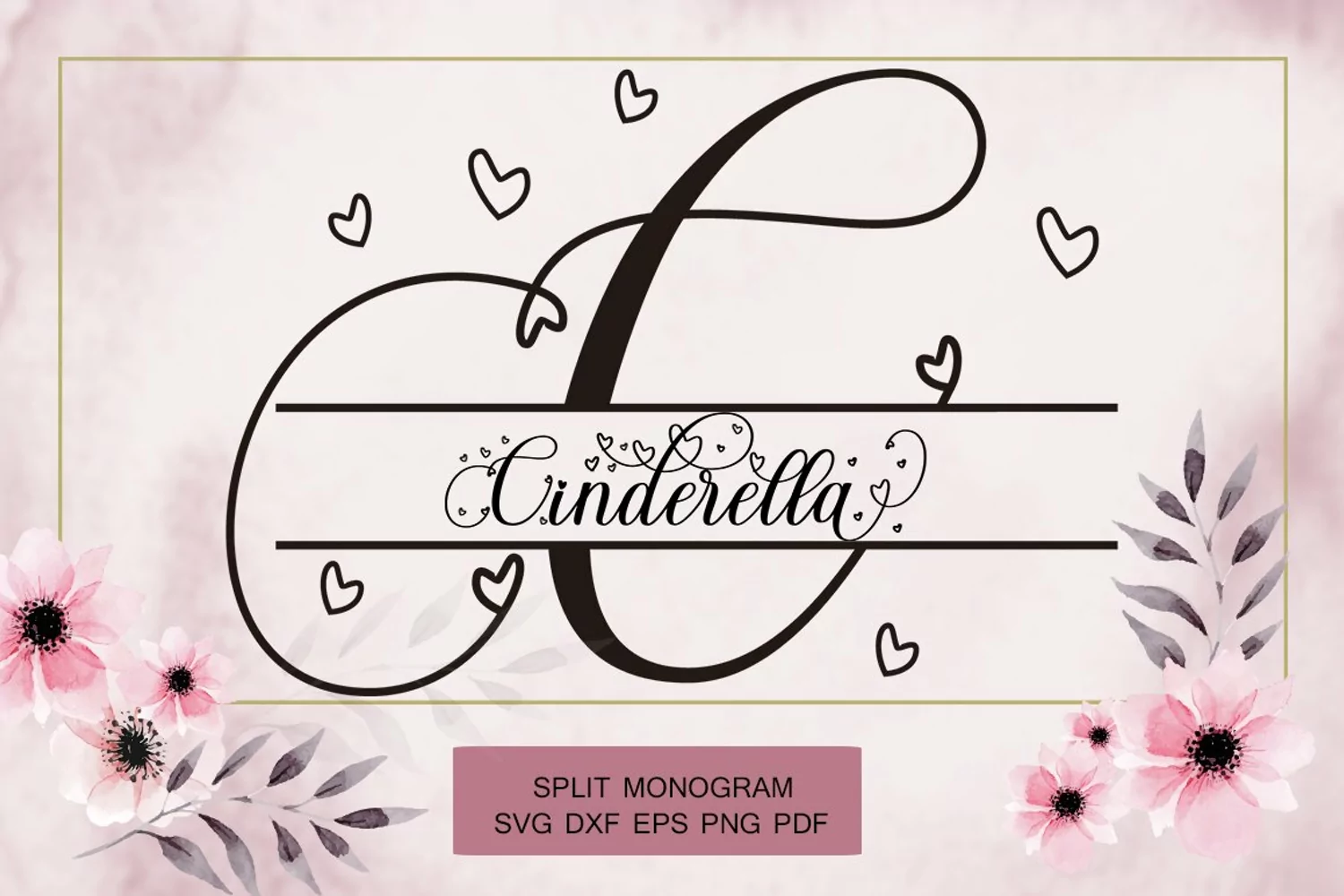
Beautiful Monogram Calligraphy
Beautiful Monogram is a soft and sweet handwritten font and monogram. Fall in love with contrasting nuances and use them to create beautiful wedding invitations, beautiful stationery, eye-catching social media posts, Logos, Brands, and cute greeting cards. This display font is the perfect choice for creating original and extraordinary designs. This font is PUA coded which means you can easily access all the heart-themed glyphs! It also features many special features including glyphs and alternative ligatures.